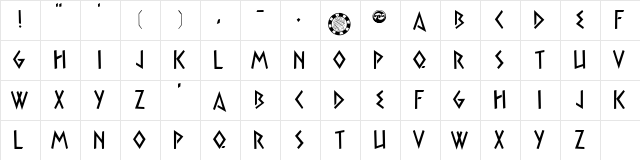
Satyr Passionate
Design Context for Satyr Typeface
Satyr is a composed and adaptable typeface that performs quietly and consistently across a wide range of design contexts.